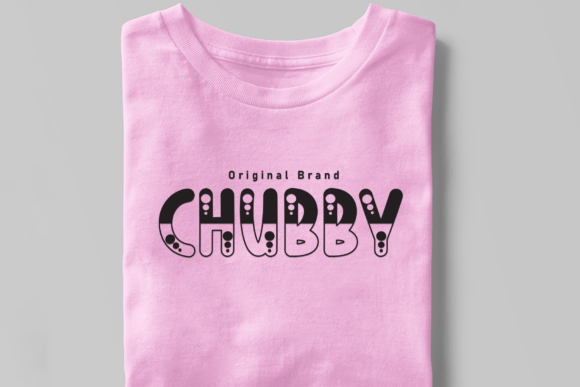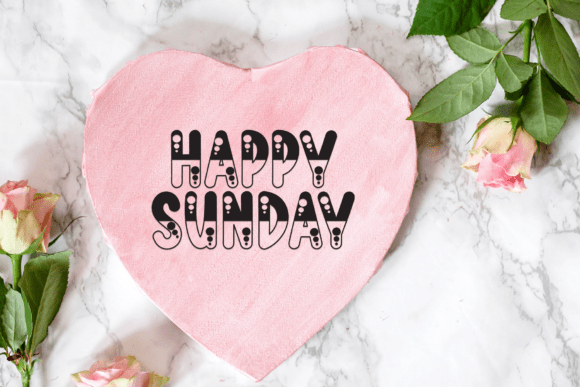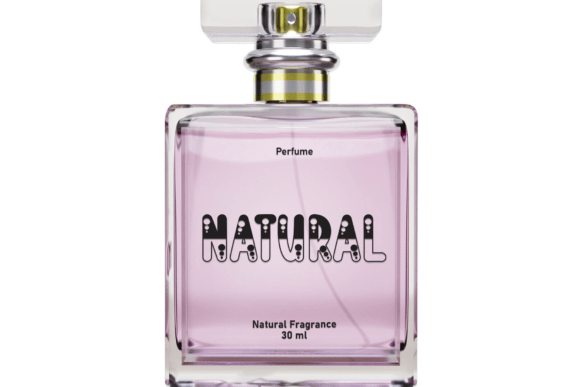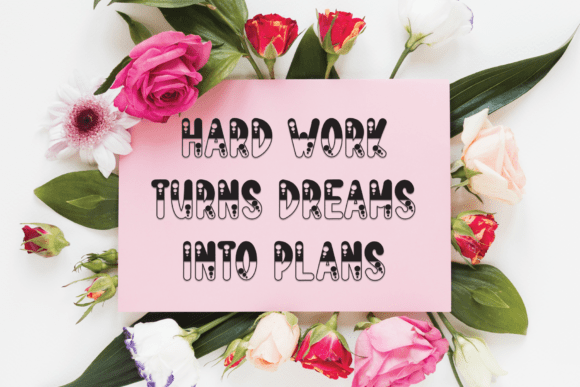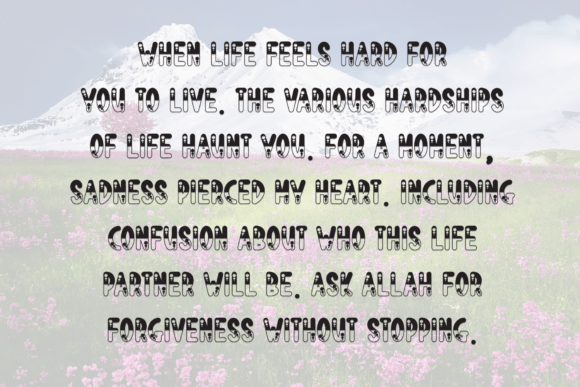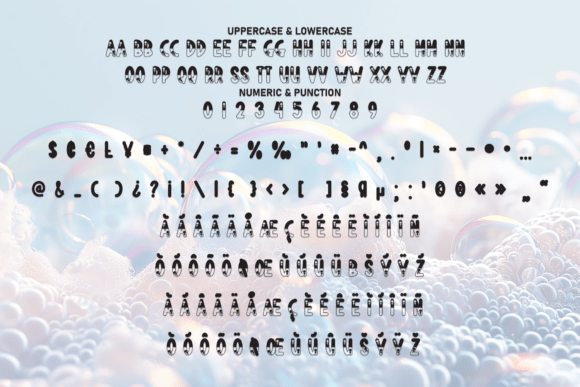
Discover the Joy of Handwritten Design
Have you ever found yourself doodling in the margins of your planner or journal, creating whimsical illustrations and patterns to brighten up your day? That’s exactly the kind of creative spark that inspired the Bubble Planner Font, a charming and amiable handwritten display font that exudes sweetness and friendliness with every stroke.
Whether you’re a graphic designer, calligrapher, or simply someone who loves to create, the Bubble Planner Font is a valuable addition to your design toolkit. With its delightful and playful aesthetics, this font is the perfect choice for crafting eye-catching wedding invitations, greeting cards, or any design work craving a dash of joy and fun!
Imagine adding a touch of whimsy and personality to your designs with the Bubble Planner Font. From custom stationery to social media graphics, this font is sure to bring a smile to your face and delight your audience.
Bubble Planner Font Key Features
- Font Style: The Bubble Planner Font is a playful, handwritten font designed to resemble bubble writing, adding a touch of whimsy and fun to any design.
- Unique Characteristics: The Bubble Planner Font features unique, hand-drawn letterforms with subtle imperfections, giving it a one-of-a-kind, organic feel.
Bubble Planner Font Review
As a designer, I’ve had the chance to work with various fonts, and I must say that the Bubble Planner Font is a unique one. Here’s my honest review:
- Cute and playful aesthetic: The Bubble Planner Font has a lovely, bubbly feel to it that’s perfect for creating a fun and youthful vibe.
- Customizable: The font comes with a range of options for customizing the look and feel, making it easy to adapt to different design styles.
- Great for illustrations: The font’s playful nature makes it a great choice for illustrations and graphics that need a whimsical touch.
- May not be suitable for formal designs: The Bubble Planner Font’s playful aesthetic may not be the best fit for more formal or professional designs.
- Limited font weights: The font only comes in a few weights, which may limit its use in certain design contexts.
Overall impression
Overall, I think the Bubble Planner Font is a great choice for designers looking to add a playful touch to their work. While it may not be suitable for every design project, it’s a versatile font that can add a lot of personality to illustrations and graphics. With a little creativity, I think this font can be used in a wide range of design contexts.
Use the Bubble Planner Font to create visually appealing and organized designs.
– Use it for bullet points and lists to create a clean and modern look.
– Experiment with different font sizes and colors to create visual hierarchy and emphasis.
The Bubble Planner Font is commonly used for:
– Planners and organizers
– Bullet journals
– Note-taking and study materials
– Creative projects and inspiration boards
Carolyna Pro Font is more similar to Bubble Planner Font in its whimsical feel but has more refined letterforms, whereas Great Vibes Font has more elegant letterforms but less whimsy compared to Bubble Planner Font.